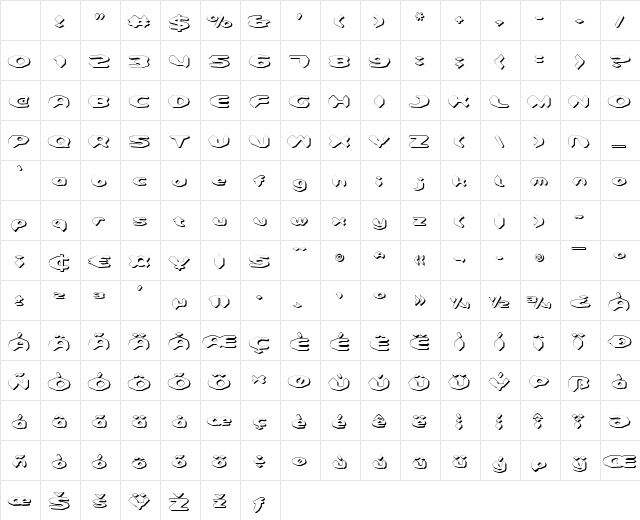
Complete Detonator Shadow glyph index. Displaying only characters natively supported by Detonator Shadow font.
Detonator is built around its visual character rather than neutral utility - its distinctive forms are designed to make an impression at display sizes.
Font Pairing: Pair with a clean neutral sans-serif for body copy to let Detonator's character lead without overwhelming the composition.
Pro Tip: Use Detonator exclusively at display sizes - it was designed to be seen, not read at length. Let a neutral companion handle body copy.